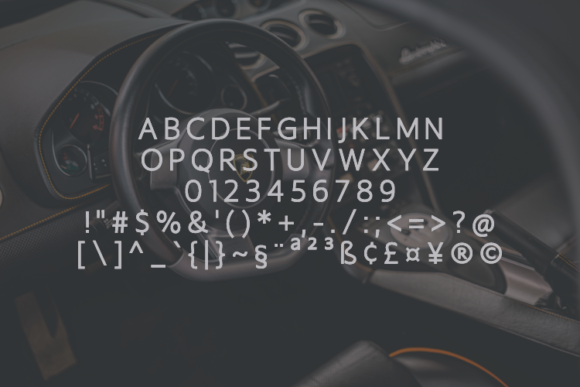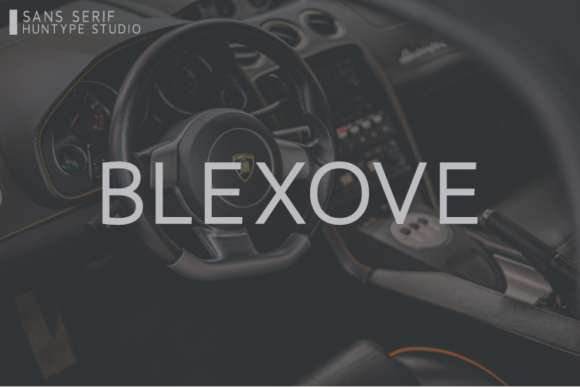
Blexove Font: Elevate Your Designs with Elegance and Sophistication
In the world of typography, a good font can make all the difference in elevating a design project from ordinary to extraordinary. For designers and crafters looking for a font that embodies elegance and sophistication, look no further than Blexove Font. This outstanding sans serif font simplifies elegance into a single, versatile typeface that can elevate a wide range of design projects to the highest level.
What is Blexove Font?
Blexove Font is a sans serif font designed to provide a clean and modern look to various design projects. Its simplicity and elegance make it an ideal choice for designers and crafters seeking a sophisticated typography solution. With its sleek lines and refined curves, Blexove Font exudes a sense of luxury and refinement, perfect for high-end branding, headings, wedding designs, invitations, signatures, logos, labels, and more.
Key Features of Blexove Font
- Versatility: Blexove Font is designed to be versatile, making it suitable for a wide range of design projects, from branding and advertising to wedding designs and crafting.
- Elegance: The font’s clean lines and refined curves give it an air of sophistication and elegance, perfect for designers and crafters seeking to add a touch of luxury to their work.
- Readability: Blexove Font is optimized for readability, ensuring that your text is clear and easy to read, even at small sizes.
- Customizability: The font is designed to be easily customizable, allowing you to adjust its size, color, and style to fit your specific design needs.
Use Cases for Blexove Font
Blexove Font is an excellent choice for a variety of design projects, including:
- Branding: Use Blexove Font to create a sophisticated and luxurious brand identity that sets your business apart from the competition.
- Wedding Designs: Add a touch of elegance to your wedding designs, including invitations, programs, and signage.
- Headings and Titles: Use Blexove Font to create eye-catching headings and titles that add a level of sophistication to your designs.
- Logos and Icons: Blexove Font is an excellent choice for creating logos and icons that require a clean and modern look.
- Labels and Packaging: Use Blexove Font to create labels and packaging that exude a sense of luxury and refinement.
Why Choose Blexove Font?
With so many fonts available, why choose Blexove Font? Here are just a few reasons:
- Unique Design: Blexove Font has a unique design that sets it apart from other sans serif fonts.
- High-Quality: The font is designed to be high-quality, with clean lines and refined curves that ensure a professional finish.
- Ease of Use: Blexove Font is easy to use and customize, making it an excellent choice for designers and crafters of all skill levels.
In conclusion, Blexove Font is an outstanding sans serif font that simplifies elegance into a single, versatile typeface. With its clean lines, refined curves, and sophisticated design, it’s perfect for designers and crafters seeking to elevate their design projects to the highest level. Whether you’re working on branding, wedding designs, headings, logos, labels, or more, Blexove Font is an excellent choice. So why wait? Download Blexove Font today and experience the power of elegant typography for yourself.